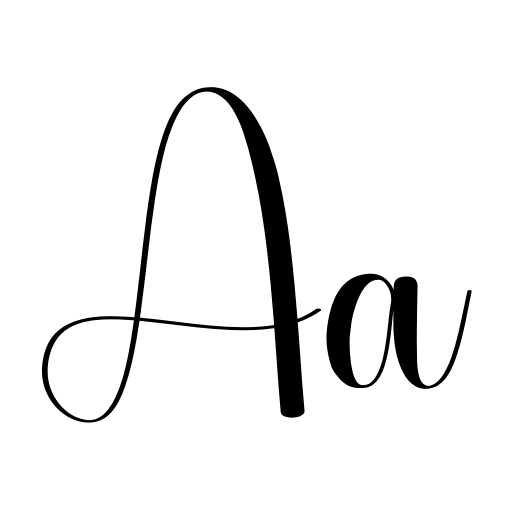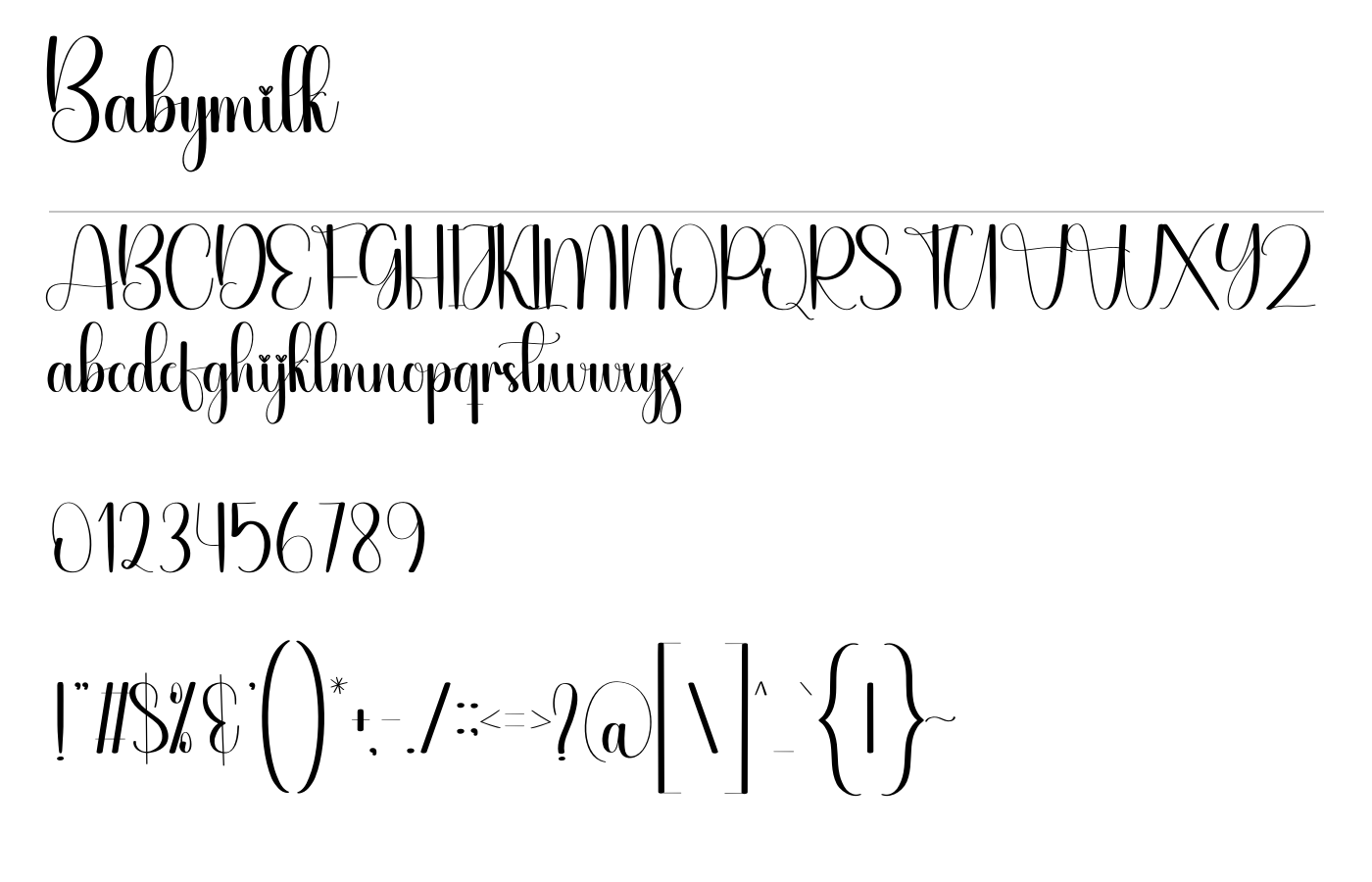
Babymilk is a playful and elegant script font featuring delicate, flowing lines with tall, slender letterforms. Its high contrast between thick and thin strokes, along with charming swashes and distinctive curls, gives it a whimsical and stylish personality perfect for creative branding, invitations, and feminine design projects. This font shines in decorative uses like logos and headlines where its expressive character can stand out beautifully.
Babymilk Font
About Babymilk Font